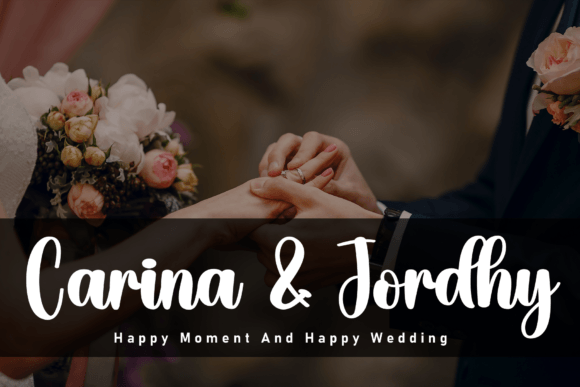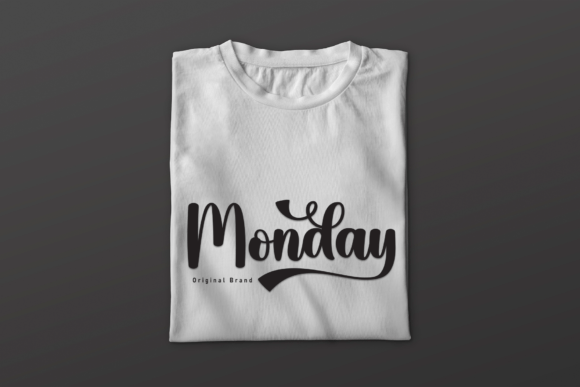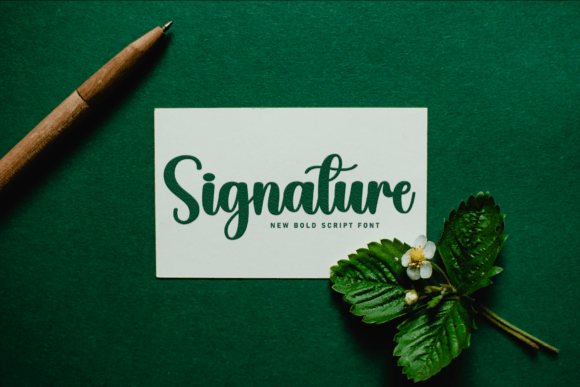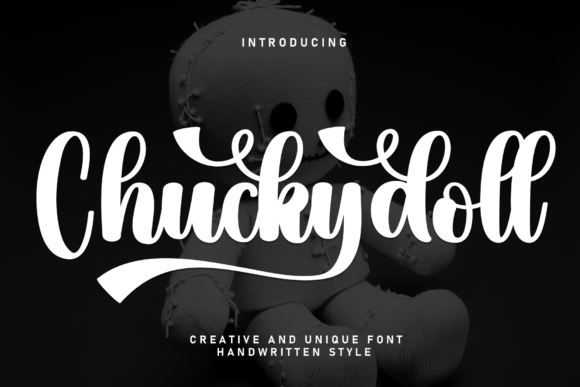
Introduction to Chuckydoll Font
Chuckydoll is a lovely and timeless handwritten font.
Key Features of Chuckydoll Font
Why Choose Chuckydoll Font?
Chuckydoll Font offers exceptional quality and versatility, making it a valuable addition to your design toolkit. Whether you’re creating for personal projects or commercial use, Chuckydoll Font delivers professional results.